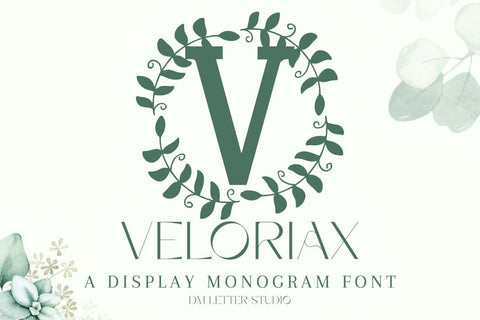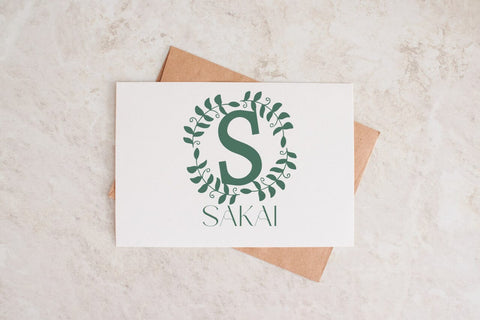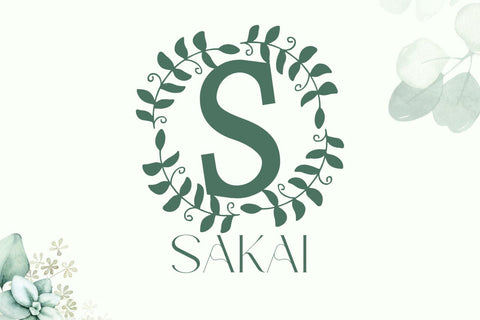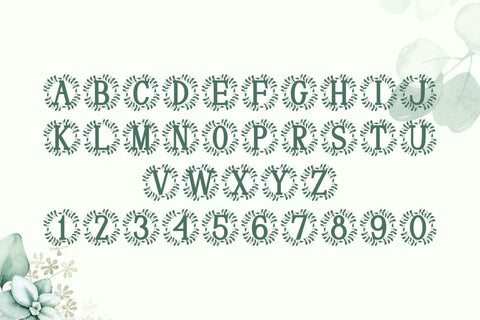
Veloriax Monogram Font
Meet Veloriax, the Monogram Font
Veloriax Monogram Font turns simple initials into bold, boutique-ready emblems with a modern luxe vibe. Strokes are smooth and balanced, while generous counters keep tiny tags readable and thumbnails crisp. Use it for wedding suites, boutique logos, keepsake gifts, wax seals, stationery, and premium packaging. Because spacing is even and forms are confident, your layouts look polished at small sizes and still hold presence on large prints.
Where this monogram font shines
Set single, double, or triple initials for logos, menus, place cards, and seals. Then frame them with laurel rings, ovals, rope circles, or fine rules to echo Veloriax’s poised geometry. Since proportions favor symmetry and clarity, centered compositions come together in minutes. As a result, your listings stay cohesive across invitations, signage, boxes, and ribbons. Veloriax also scales smoothly from jewelry cards to entry displays, which makes it ideal for events, retail packaging, and gift programs.
Design tips for Veloriax Monogram
Keep initials large and let white space breathe. Pair the hero mark with a soft serif for body copy or a neat humanist sans for dates and labels. Add a fine inner stroke, micro shadow, or delicate frame to create depth. Because the structure is airy and refined, textured papers and metallic foils raise perceived value. Keep wording short so the monogram remains the hero on favors, tags, and wax seals.
Select stylistic alternates for key letters
Curves tuned for foil, letterpress, engraving, laser cutting, and clean vinyl paths
Why creators choose this monogram font
You want elegance that reads at a glance and sells across many product types. Veloriax Monogram Font delivers steady clarity, fast layout, and a cohesive brand voice from invites to packaging and gifts.